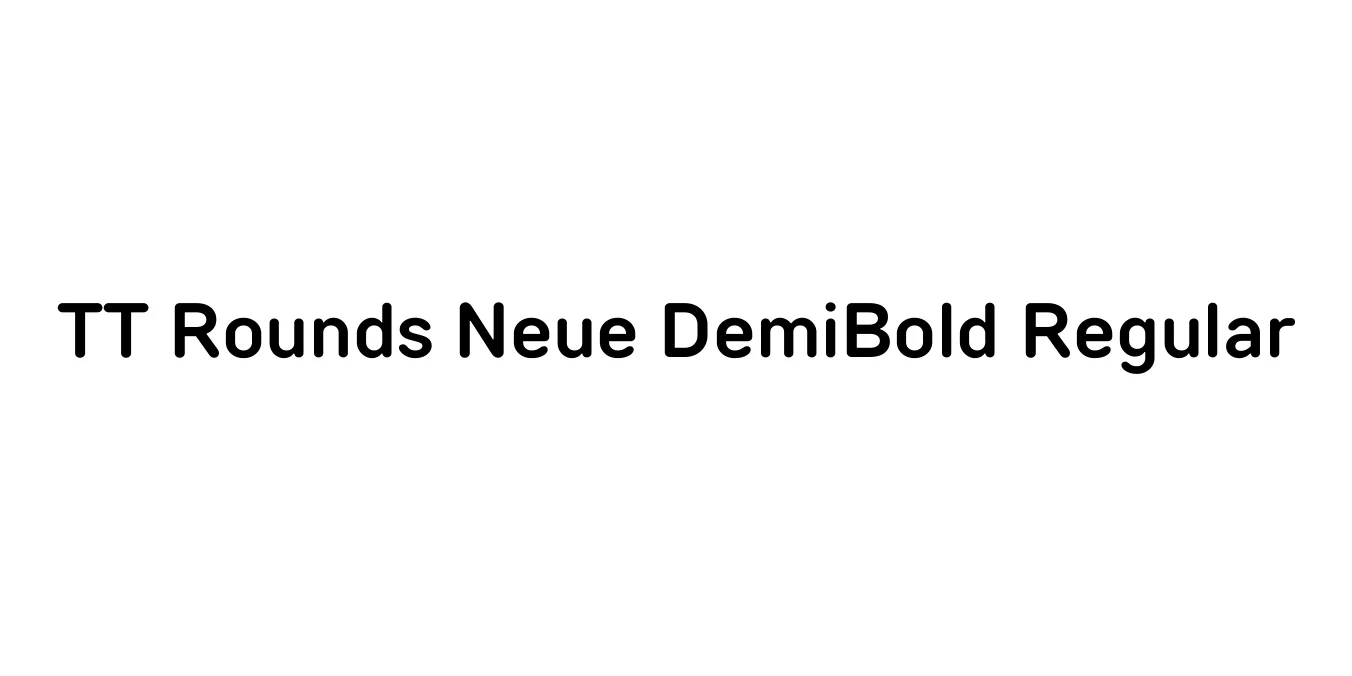
TT Rounds Neue DemiBold Regular
Designed by Ivan Gladkikh, TypeType Team
| Category | Rounded Sans Serif |
| Designer | Ivan Gladkikh, TypeType Team |
TT Rounds Neue DemiBold Regular is a modern evolution of the classic TT Rounds, meticulously redesigned to meet contemporary standards of digital and print typography. This font features a sophisticated geometric foundation with softened terminals, resulting in a typeface that is both professional and exceptionally approachable. The DemiBold weight provides a sturdy presence without sacrificing the signature friendliness that characterizes the entire family.
As part of the TypeType collection, this typeface undergoes rigorous testing for kerning and hinting, ensuring optimal performance across various high-resolution screens and print materials. Its balanced proportions and clean aesthetic make it a versatile choice for designers looking for a sans serif that combines the clarity of a geometric font with the warmth of rounded edges.
TT Rounds Neue DemiBold Regular Best Uses
Ideal for creating warm, approachable, and professional corporate identities.
Excellent for interface buttons and headers due to its high legibility.
The rounded edges make it safe and inviting for educational or playful content.
Works perfectly for punchy headlines and social media graphics.